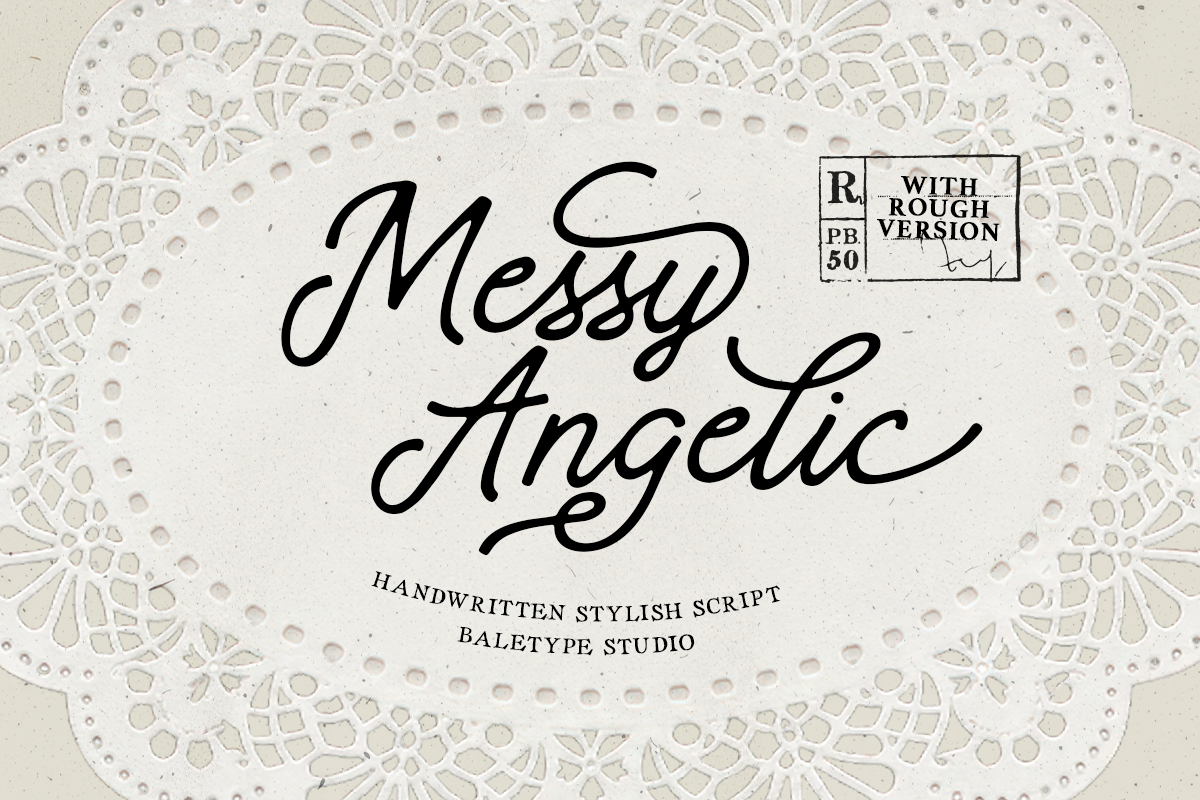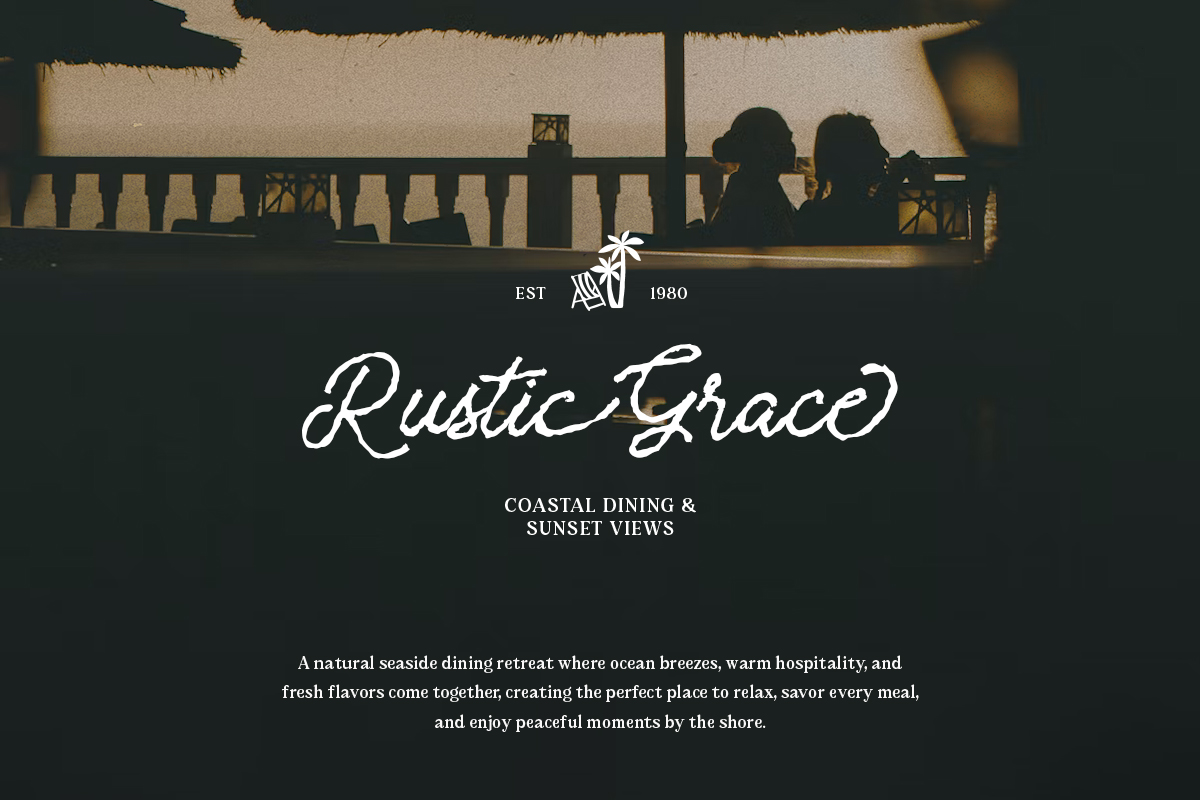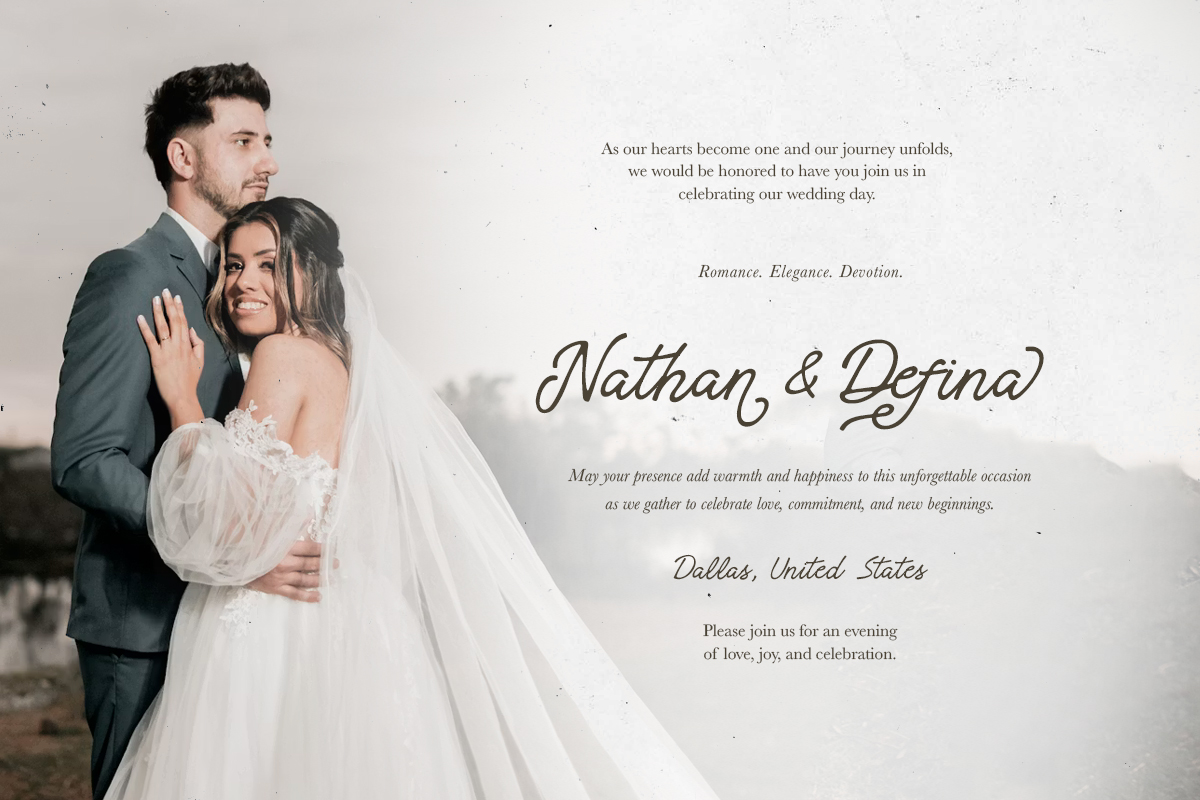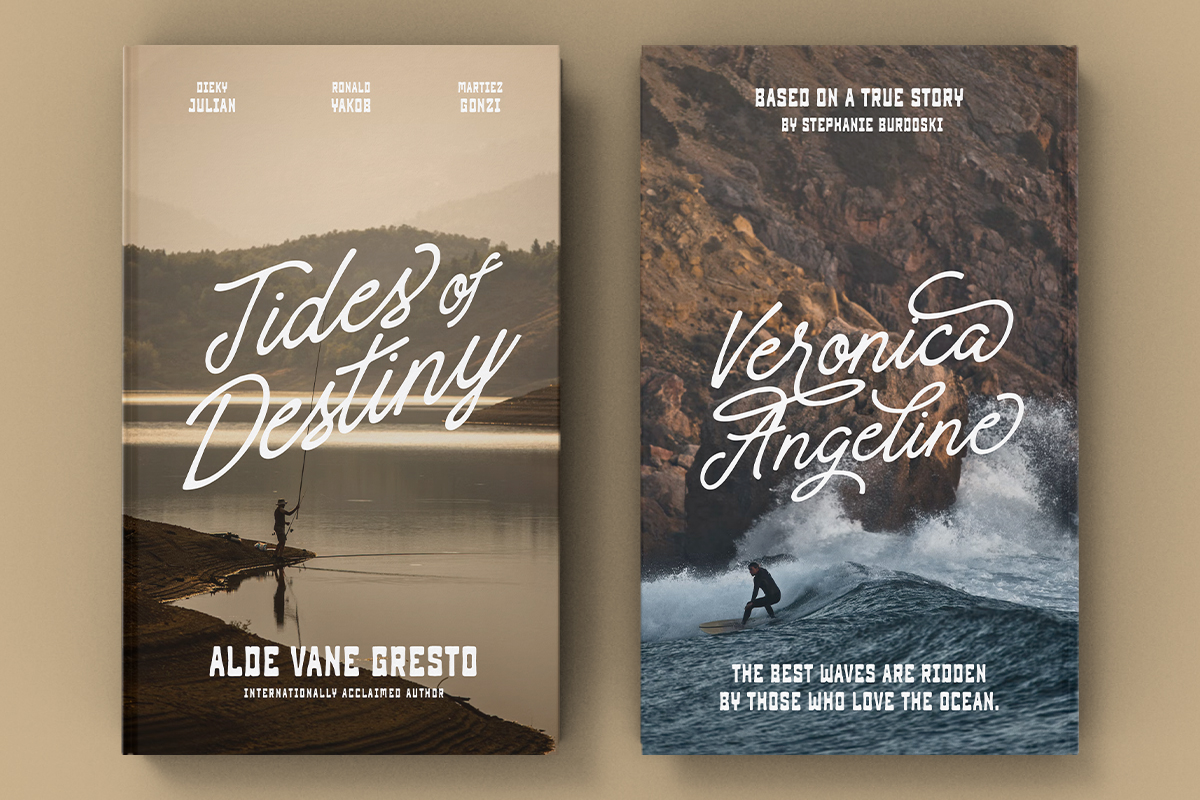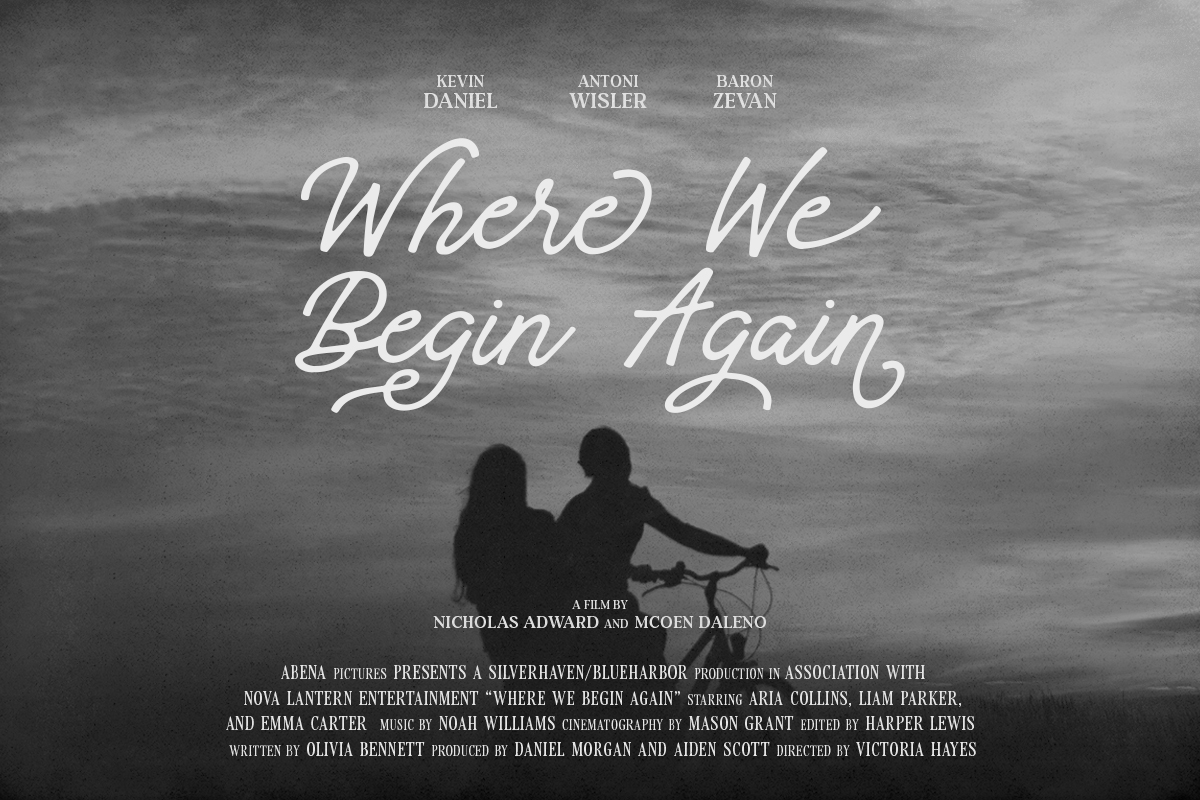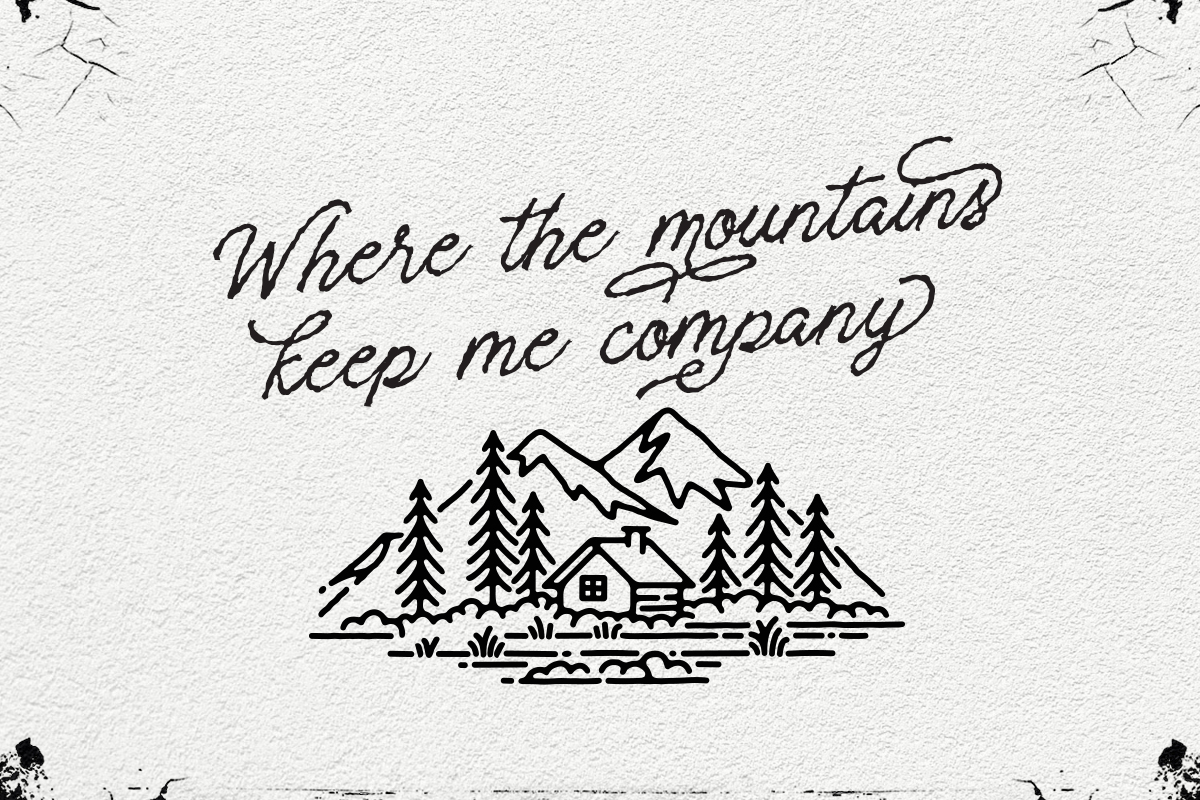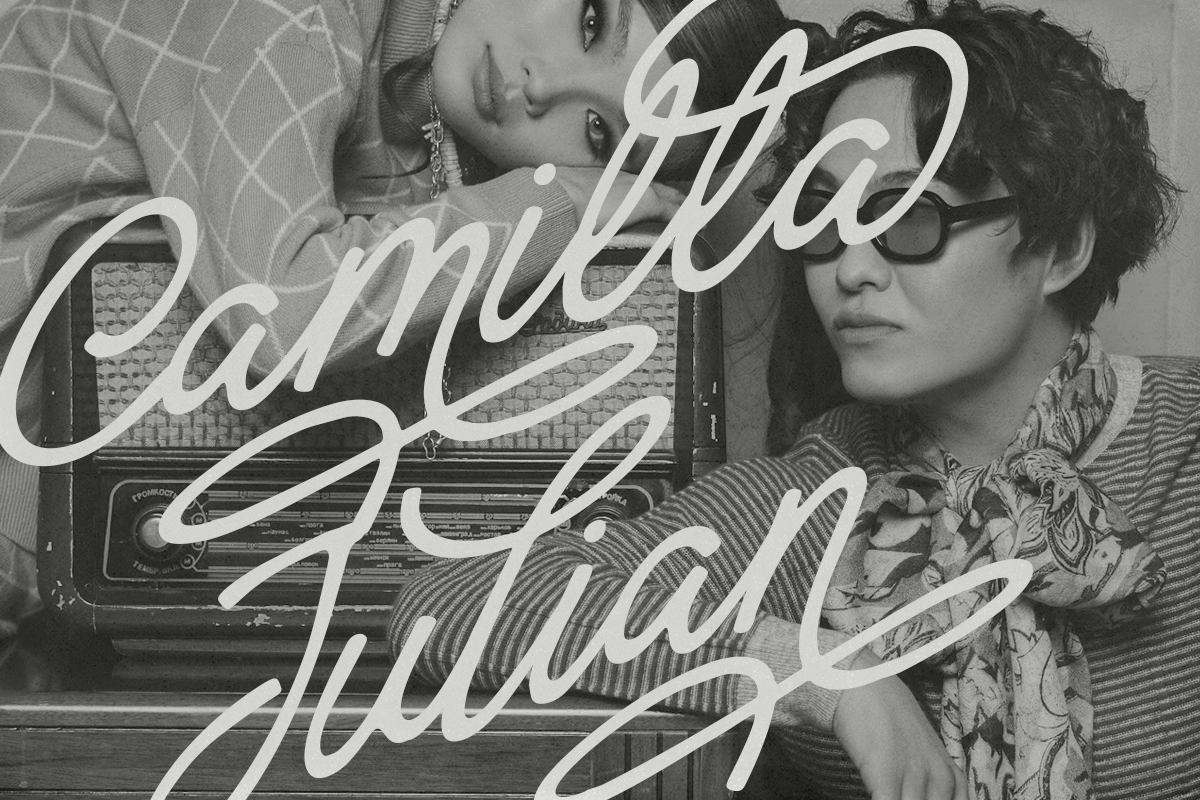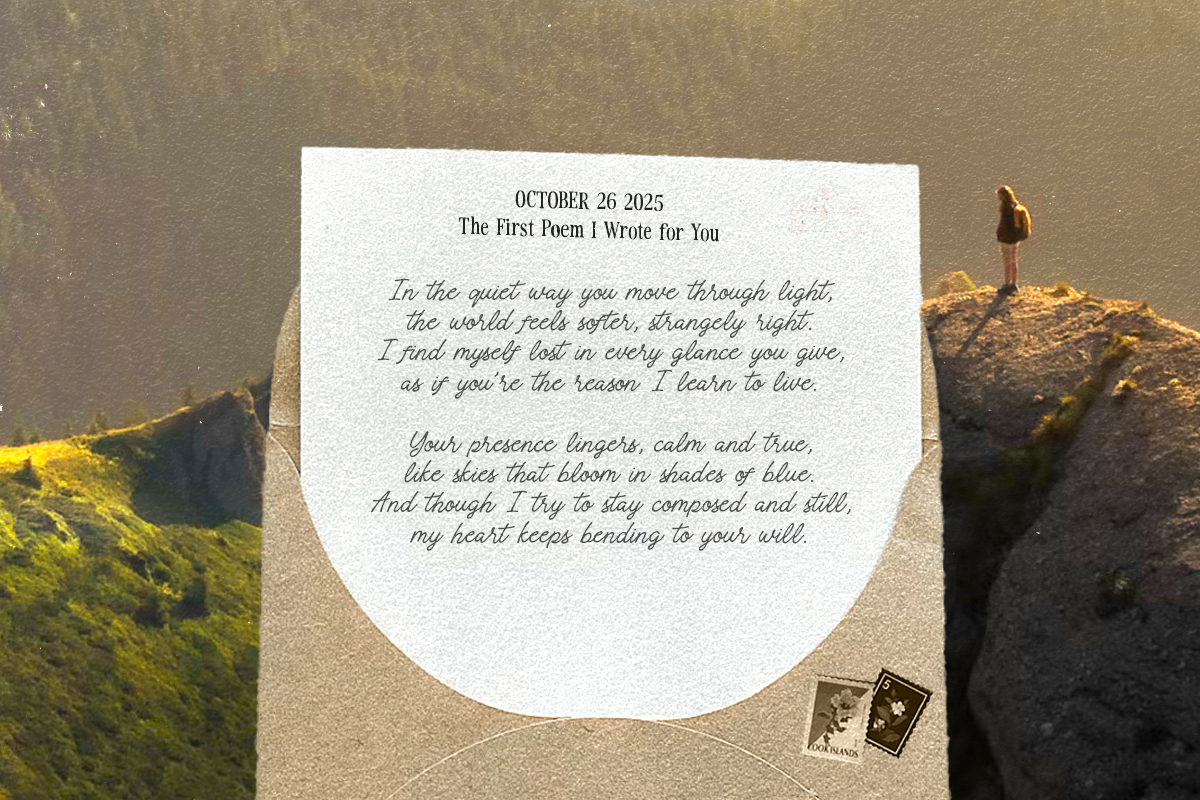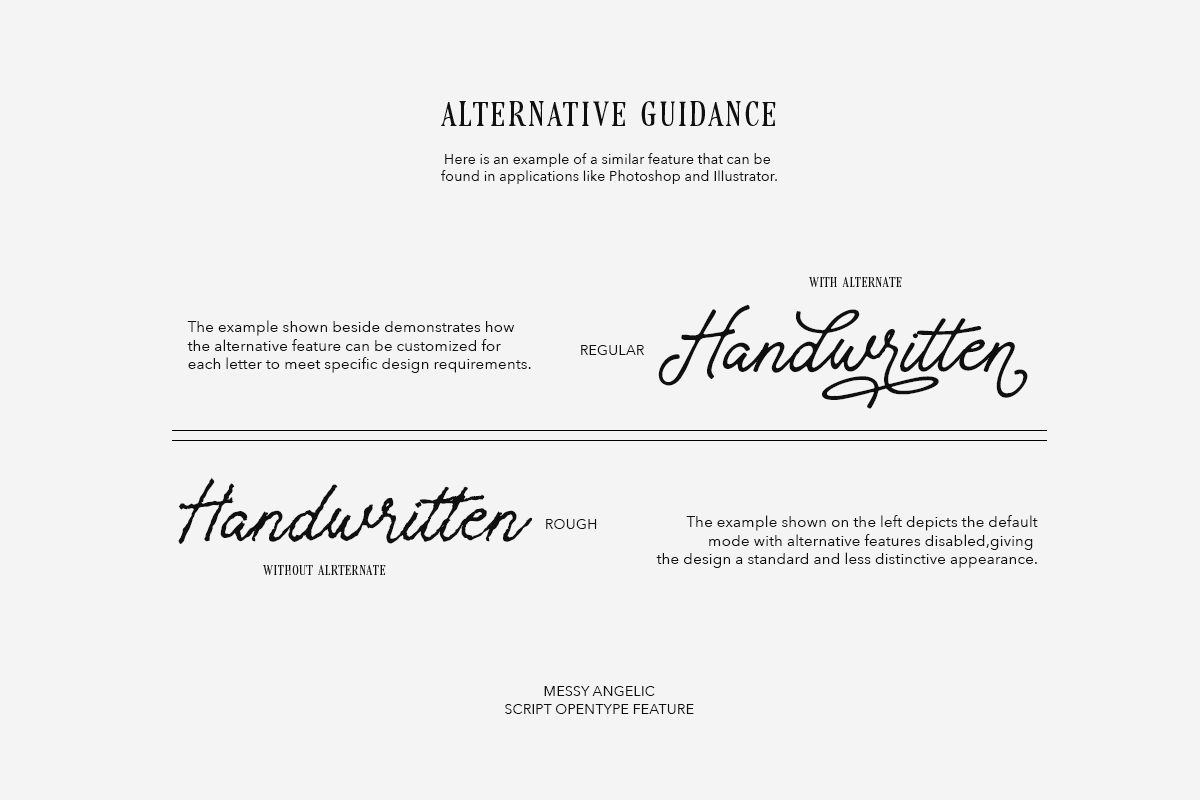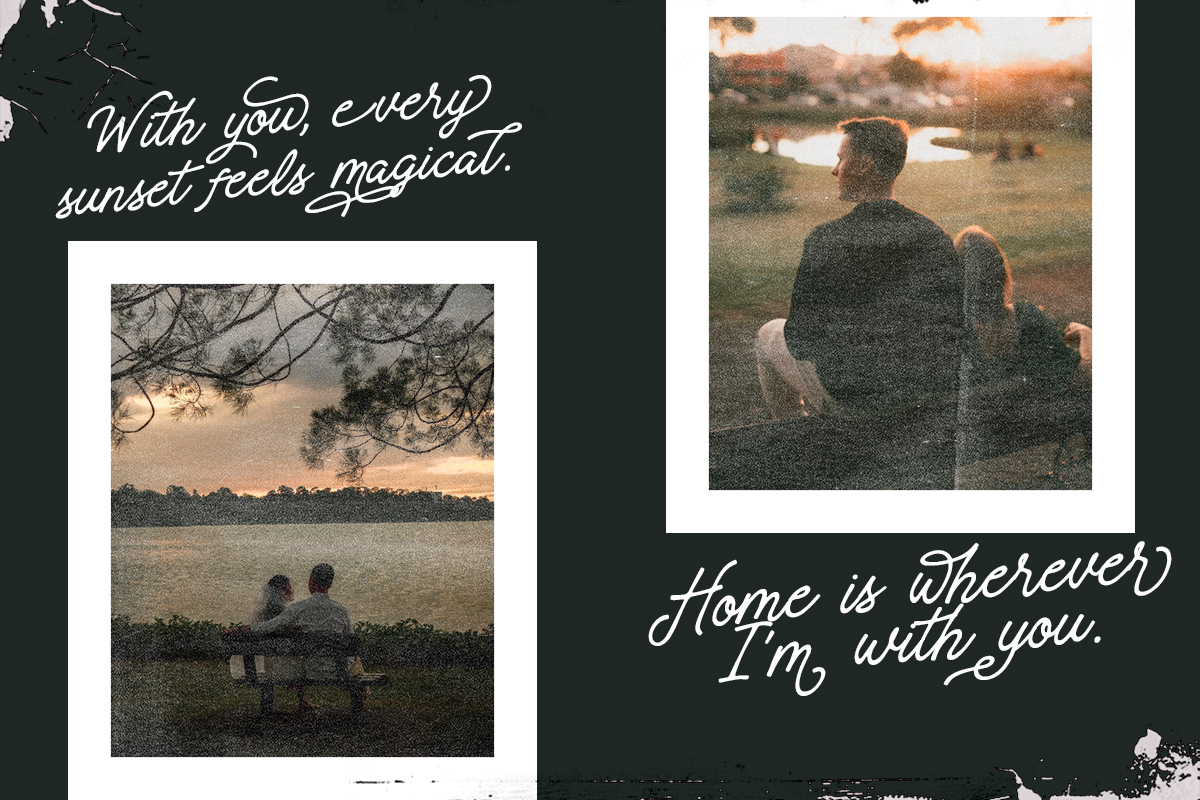
Messy Angelic is a stylish handwritten script with bunch of alternates. This fonts come with regular and rough style. You can use this font for any purposes such as wedding invitation, branding, quotes, poster, or any design that need beautiful hand touch vibes. The rough version will make your project looks even more handcrafted and raw. This font also support multi language.
Messy Angelic – Handwritten Script
Messy Angelic is a stylish handwritten script with bunch of alternates.